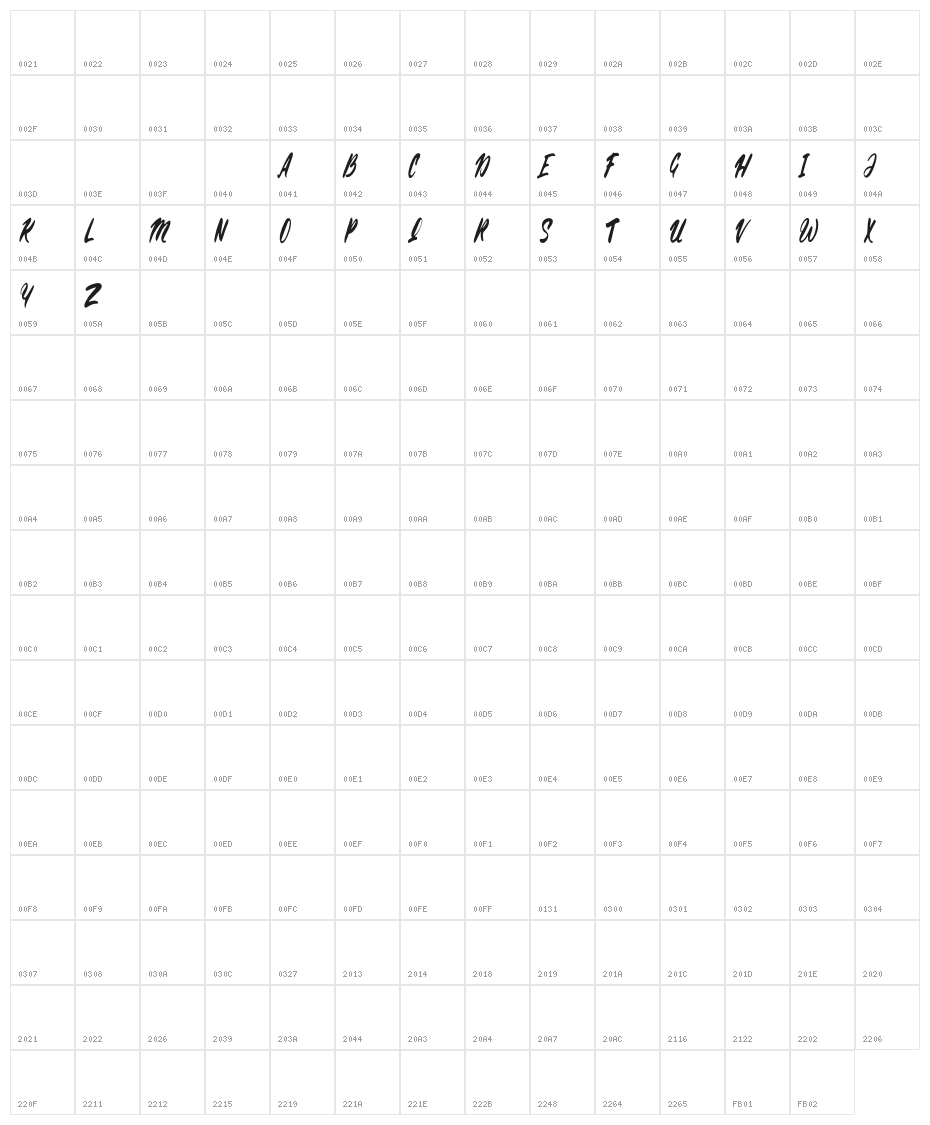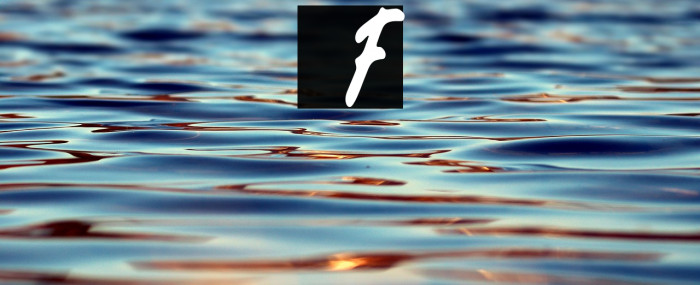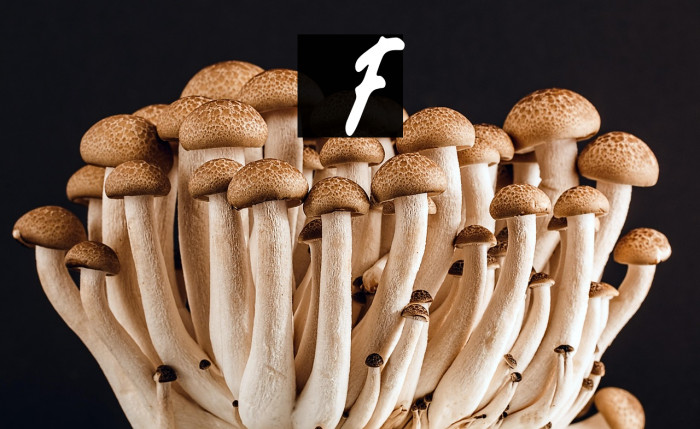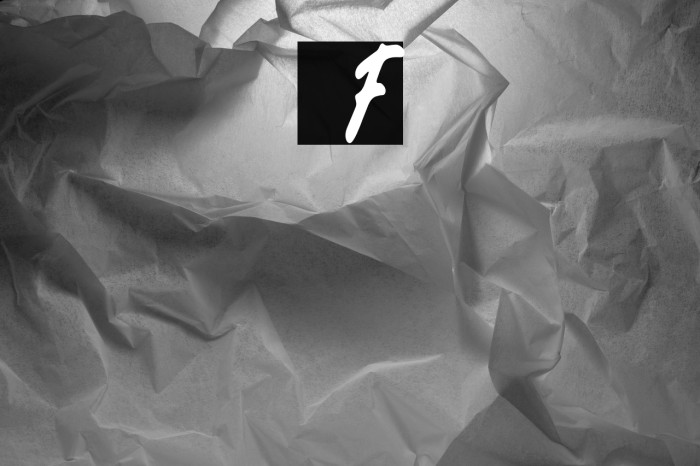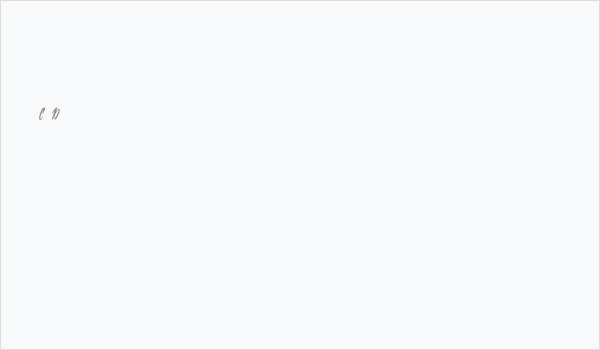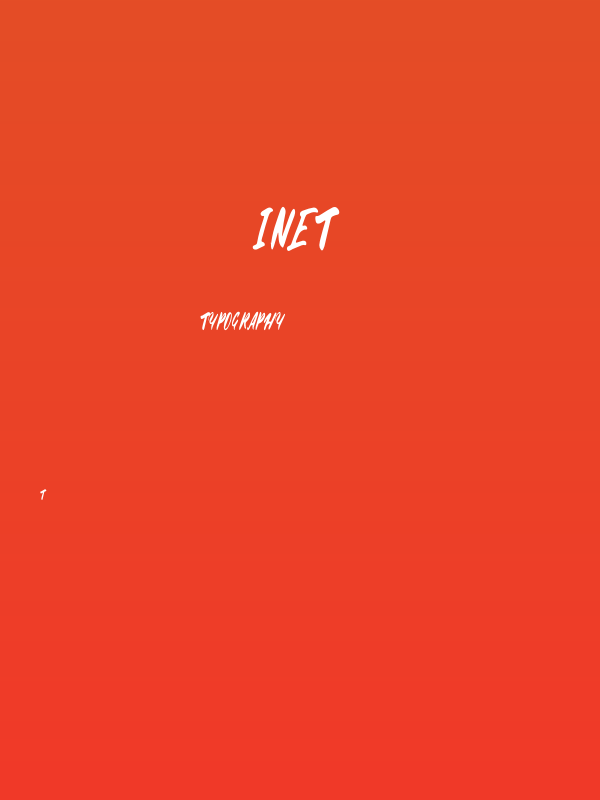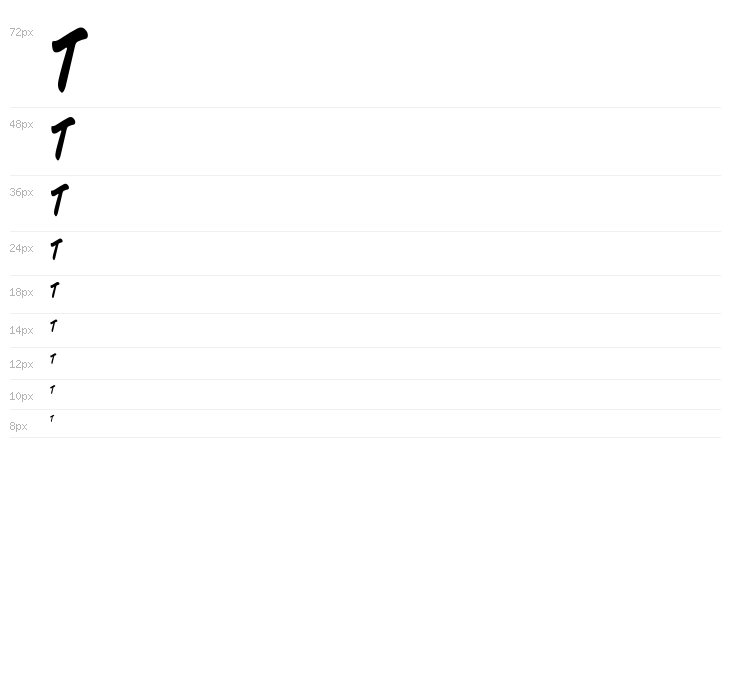
inet2 Font
inet2 Description
This font exhibits a bold and dynamic script style, characterized by its fluid and cursive letterforms. The strokes are thick and expressive, giving a sense of movement and energy. Each character is uniquely crafted with a slight slant, enhancing the handwritten appearance. The uppercase letters are particularly striking, with exaggerated curves and loops that add to the overall dramatic effect. This font is well-suited for creative and artistic projects where a personal touch is desired. Its bold presence makes it ideal for headlines or titles that need to capture attention.
| Proposed Projects | Ideal for branding, logos, invitations, and artistic projects requiring a personal touch. |